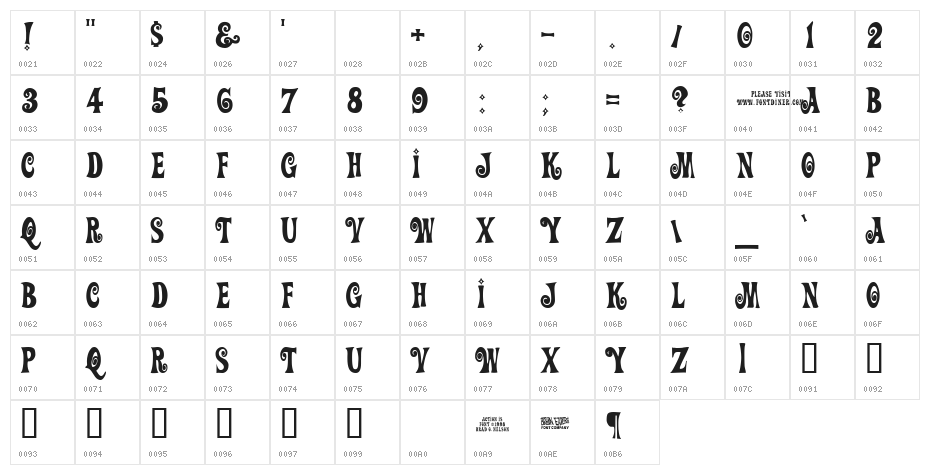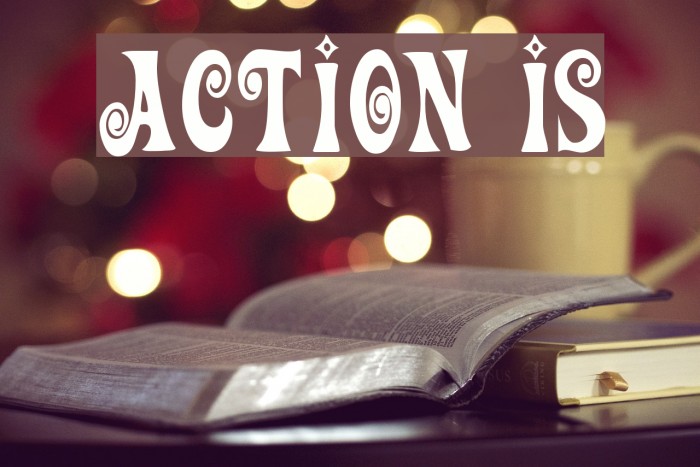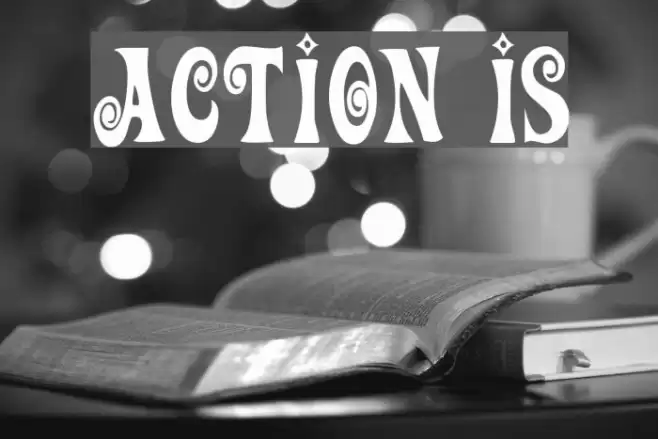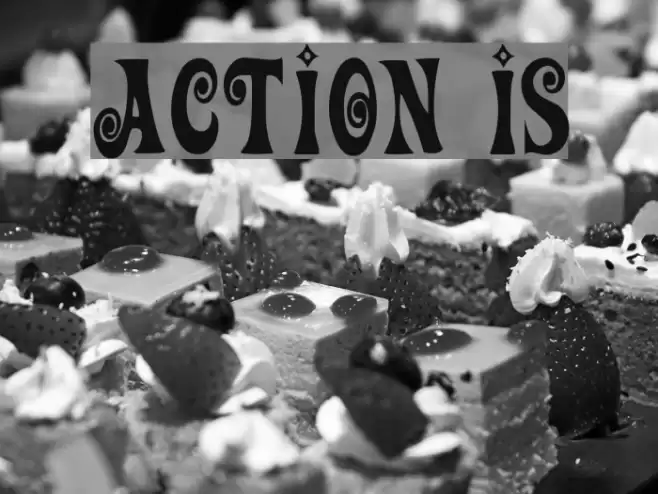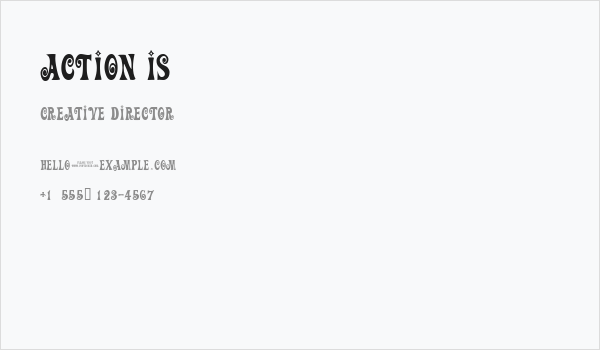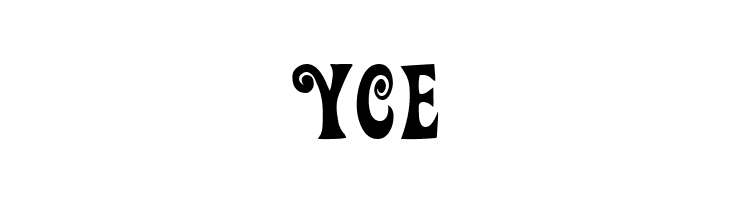
Action Is Font
Action Is Description
This font features a whimsical and playful design, characterized by its bold and decorative style. The letters exhibit a unique swirl or curl, particularly noticeable in characters like 'A', 'G', and 'Q', adding a sense of movement and flair. The numbers and special characters follow the same playful theme, with exaggerated curves and loops. This font is highly decorative, making it ideal for eye-catching designs. The overall appearance is bold and dynamic, with a strong presence that commands attention. The spacing between characters is relatively tight, enhancing its compact and cohesive look. The font's distinct style makes it suitable for creative and artistic projects where a touch of whimsy is desired.
Proposed ProjectsIdeal for posters, event invitations, children's book covers, and playful branding.